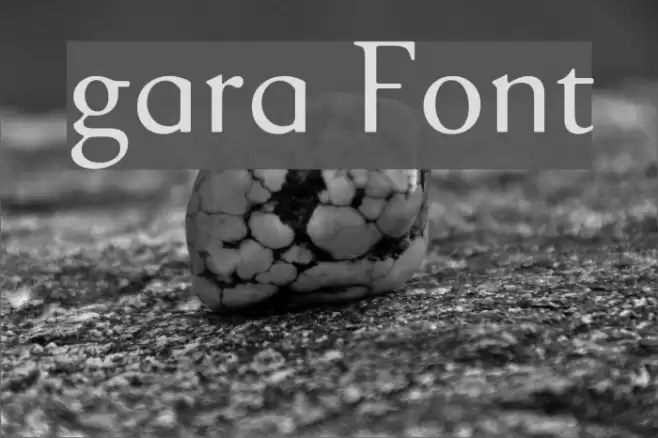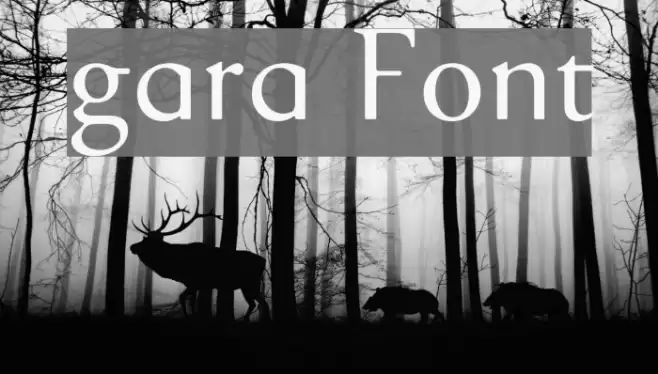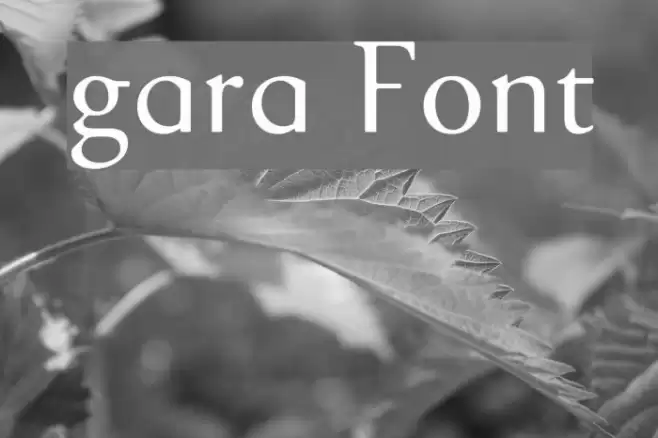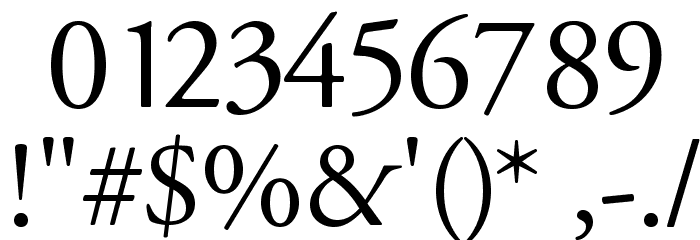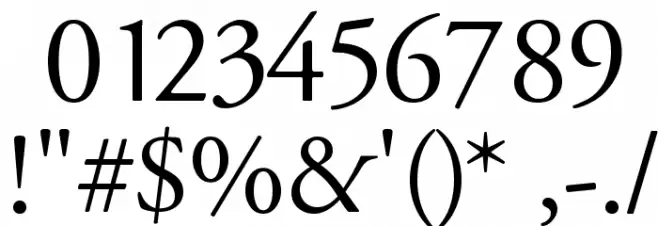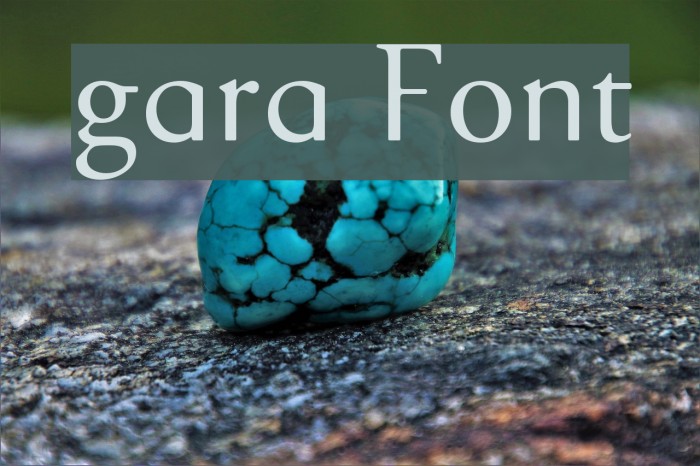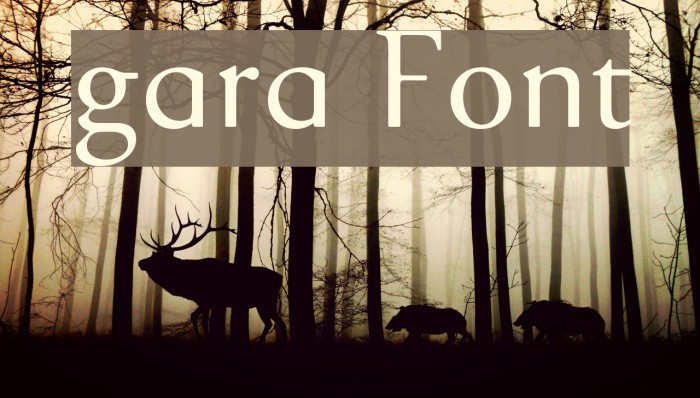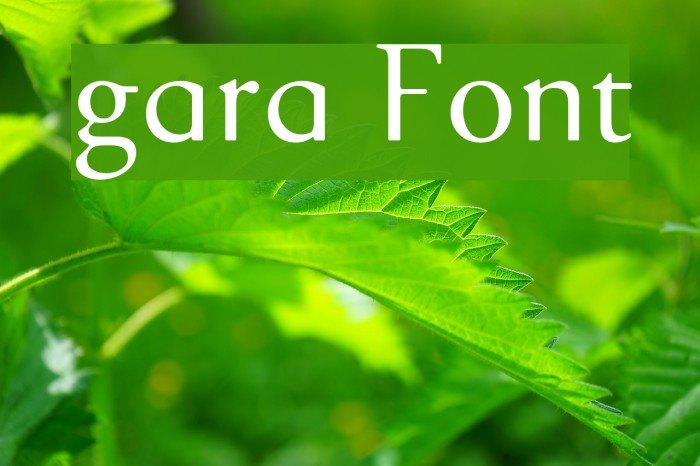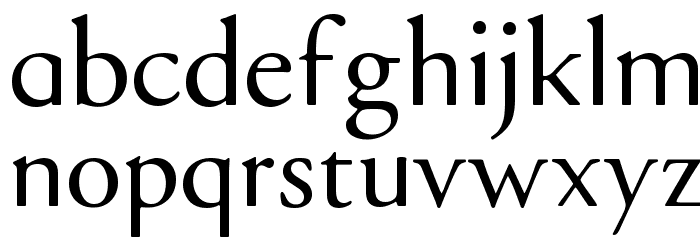
gara
This font features a classic serif style with elegant and refined strokes. The uppercase letters are tall and slightly condensed, giving a sense of sophistication and formality. The lowercase letters maintain a consistent flow with subtle curves, enhancing readability. The numerals are well-proportioned, aligning seamlessly with the overall design. Special characters are crafted with attention to detail, ensuring versatility in various contexts. The font's balance between thick and thin strokes provides a moderate contrast, adding to its timeless appeal.
A classic serif font with elegant strokes and moderate contrast.
- Proposed Projects: Ideal for editorial design, book covers, formal invitations, and branding projects that require a touch of elegance and tradition.
- Category: Serif
- Overall Style: Classic